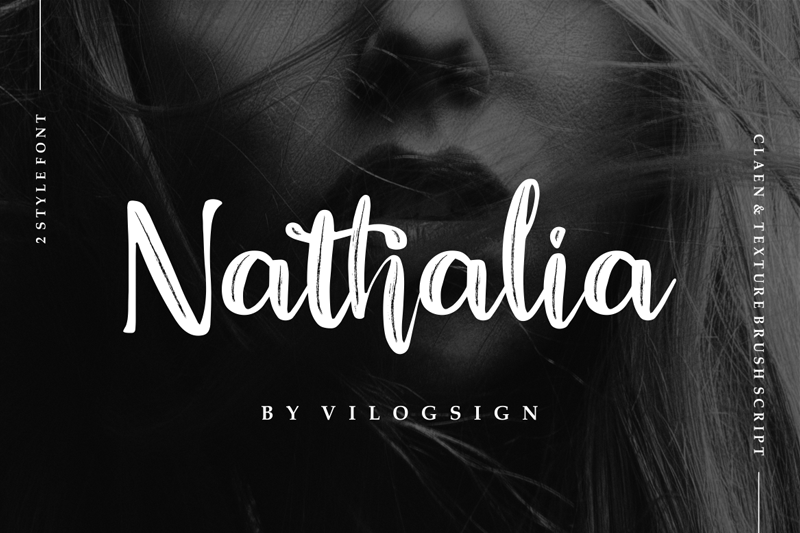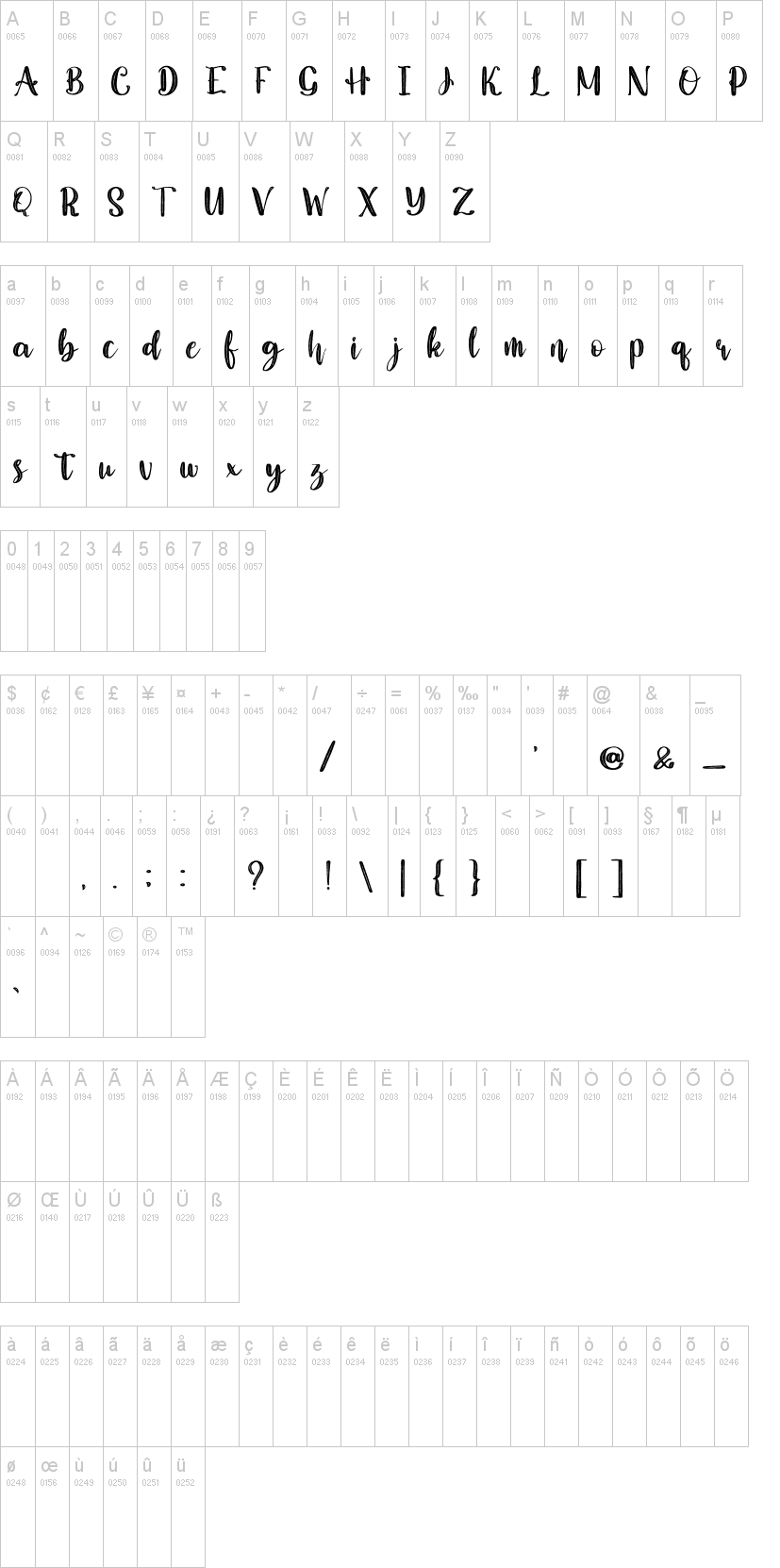
Introducing new my font "Nathalia". This font so feminine and Sweet font, with added a ligature and texture effect make this font so sweet. This font is highly recommended for those of you who want to make it for Logo, Quotes, Magazine, Fashion, Branding, and others.